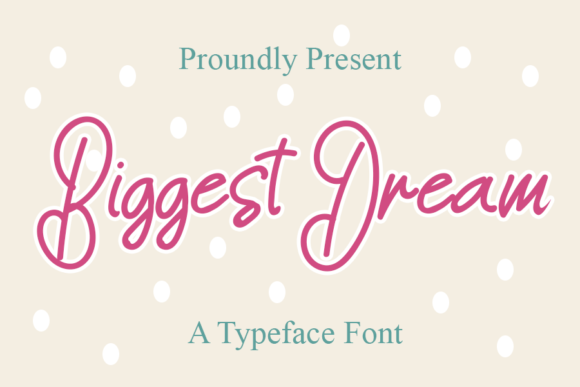
The Elusive Dream Font: How Biggest Dream Can Elevate Your Designs
Have you ever been in the middle of a design project, and suddenly, it feels like something’s missing? You’re not quite sure what it is, but you know it’s not quite right. I’ve been there too! I was working on a luxury branding project for a high-end jewelry client, and I was struggling to find the perfect font. That’s when I stumbled upon Biggest Dream, a beautiful and light handwritten font that added a spark of luxury to my design.
An Honest Review of Biggest Dream
So, what makes Biggest Dream so special? Let’s dive into the good stuff! 😊
• Unique feel: Biggest Dream has a distinct, handwritten feel that’s both elegant and sophisticated.
• Stunning impact: This font makes a statement, adding a touch of luxury to any design project.
• 💫 Versatility: Biggest Dream can be used for a wide range of projects, from branding and packaging to wedding invitations and more.
Of course, no font is perfect, and Biggest Dream has a few minor quirks:
• 🤔 Limited multilingual support: While Biggest Dream supports some languages, it may not be the best choice for projects requiring extensive multilingual support.
• ⚠️ Occasional kerning issues: As with any font, you may encounter some kerning issues, especially when using larger font sizes.
The Story Behind Biggest Dream
Biggest Dream was designed with the intention of creating a font that would evoke a sense of luxury and sophistication. The designer aimed to craft a font that would be both elegant and approachable, making it perfect for a wide range of design projects. While the designer’s story is shrouded in mystery, their passion for typography and design shines through in Biggest Dream.
Font Name Biggest Dream Font
Author LetterPack
Q: What type of projects is Biggest Dream best suited for?
A: Biggest Dream is versatile and can be used for luxury branding, packaging, wedding invitations, and more.
Q: Does Biggest Dream support multilingual languages?
A: While Biggest Dream supports some languages, it may not be the best choice for projects requiring extensive multilingual support.